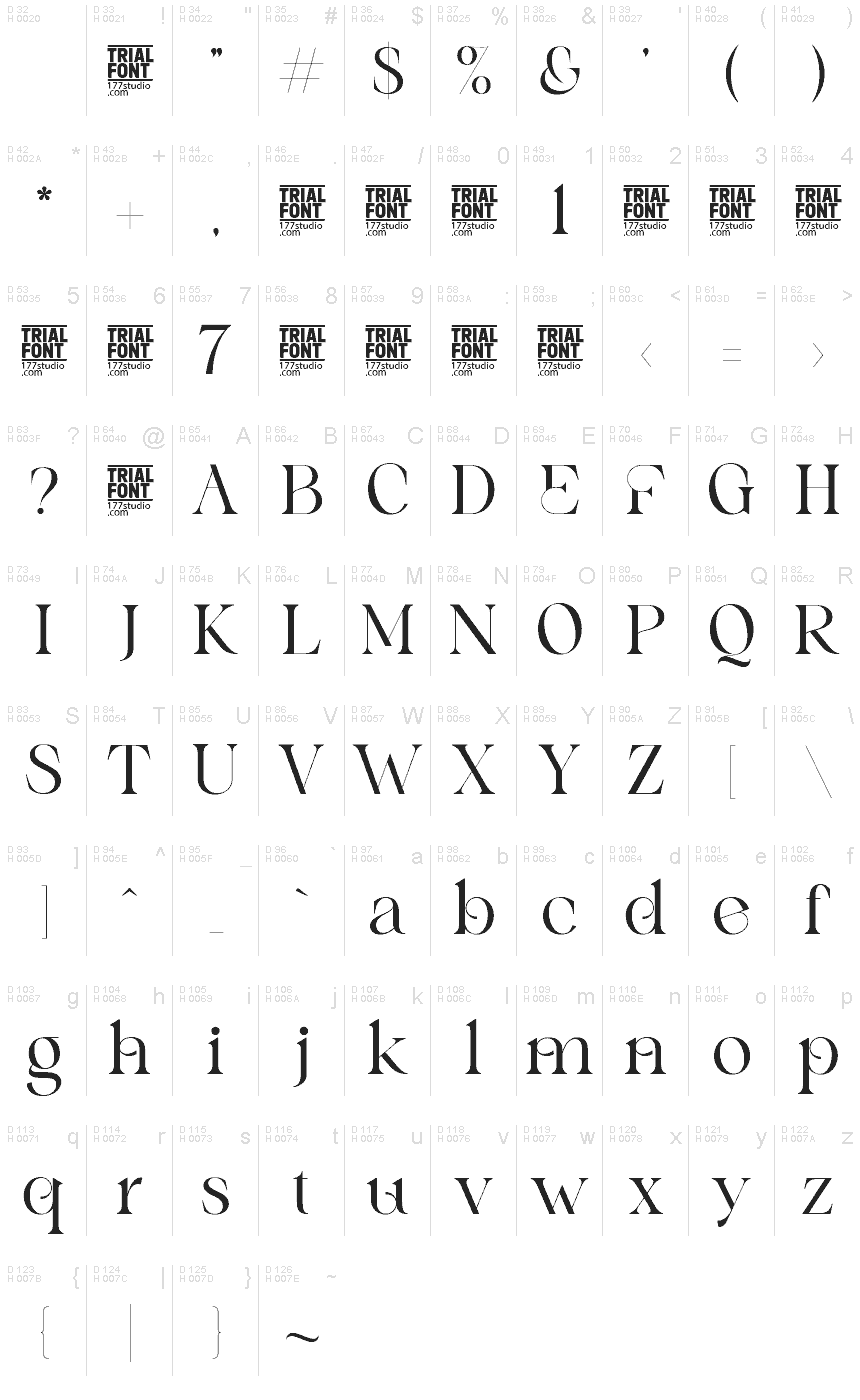
Aspect Range font is a creation of 177Studio, renowned for its sophisticated traditional style. Exploring the elegance of serif typography and high-contrast display designs, this font certainly is the one to catch attention. It reveals inspiration from classic visual art that it incorporates into a unique look for each letter involved. Every character has an element that elevates its formal look and ensures exceptional readability levels even at large scales.